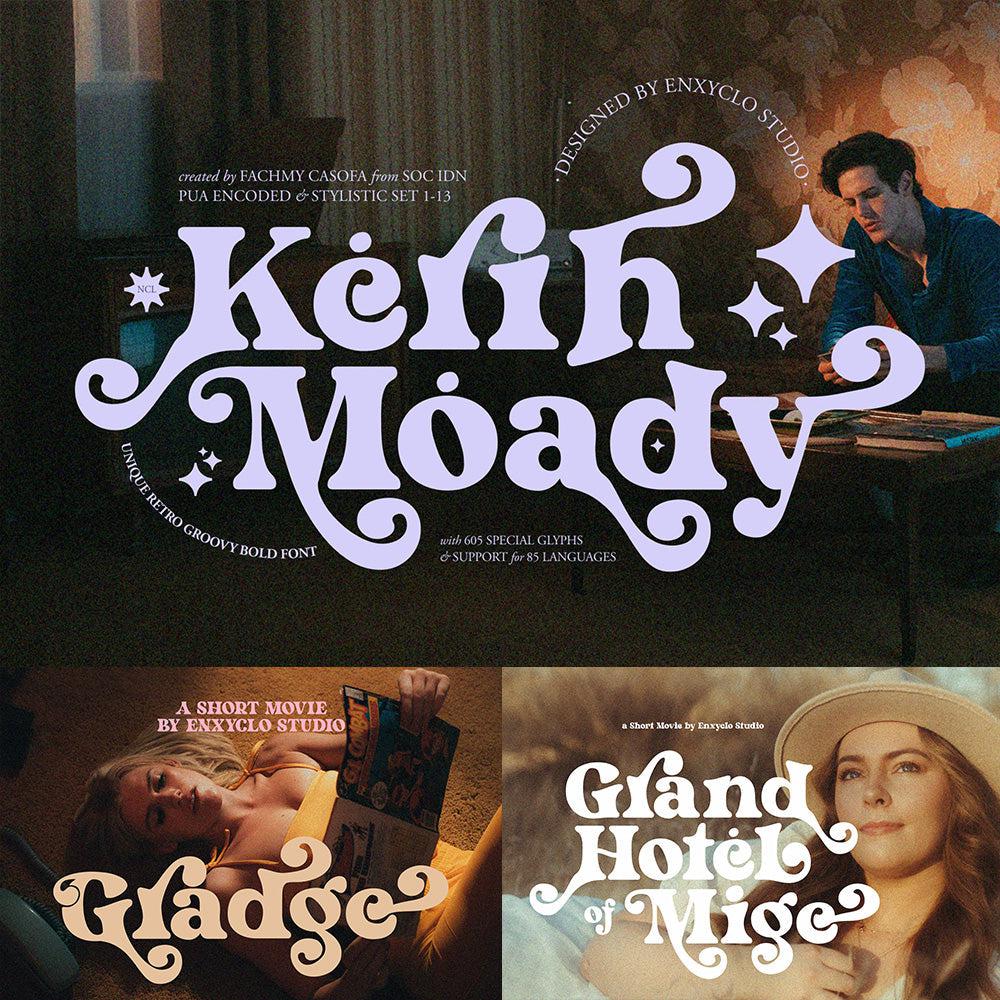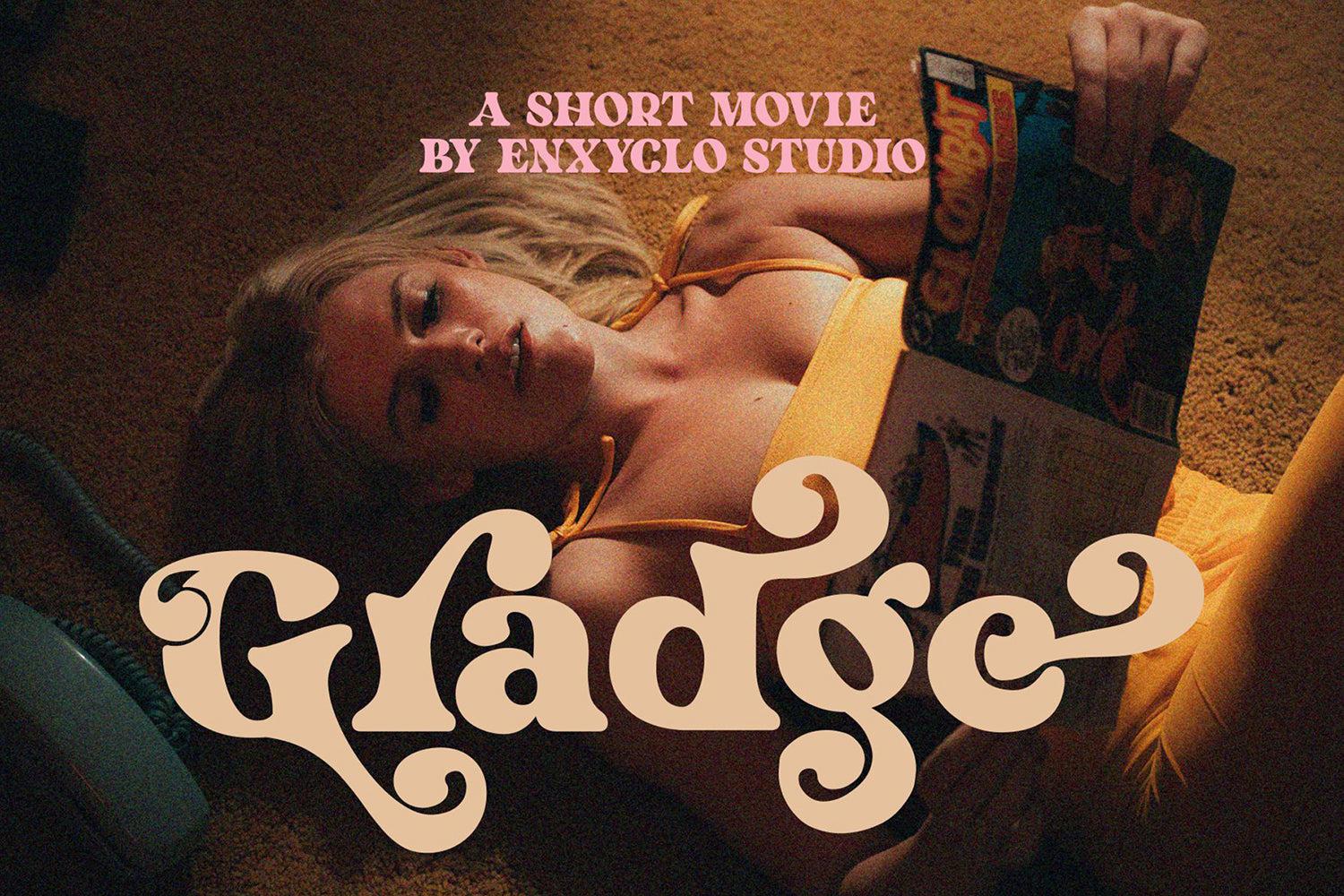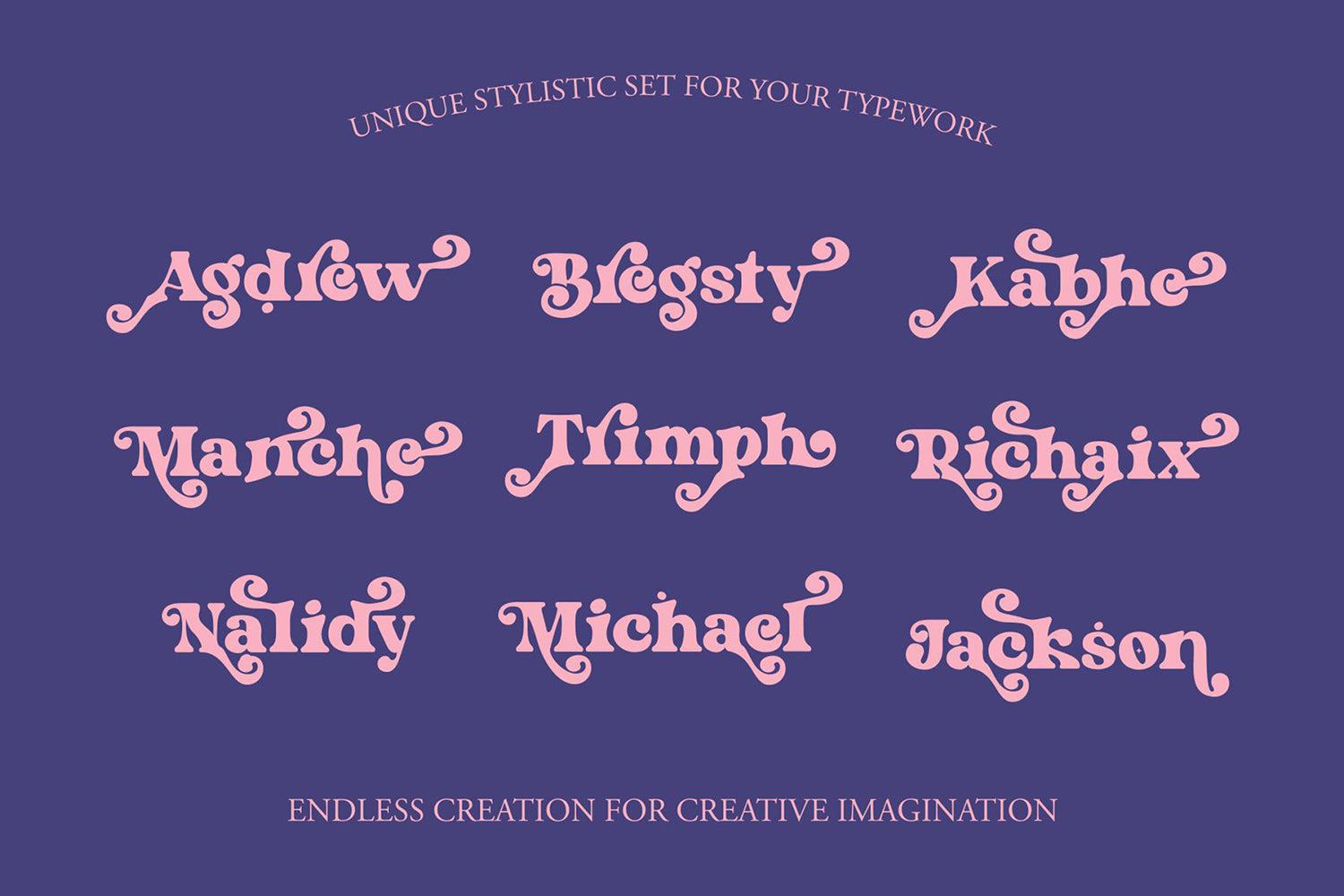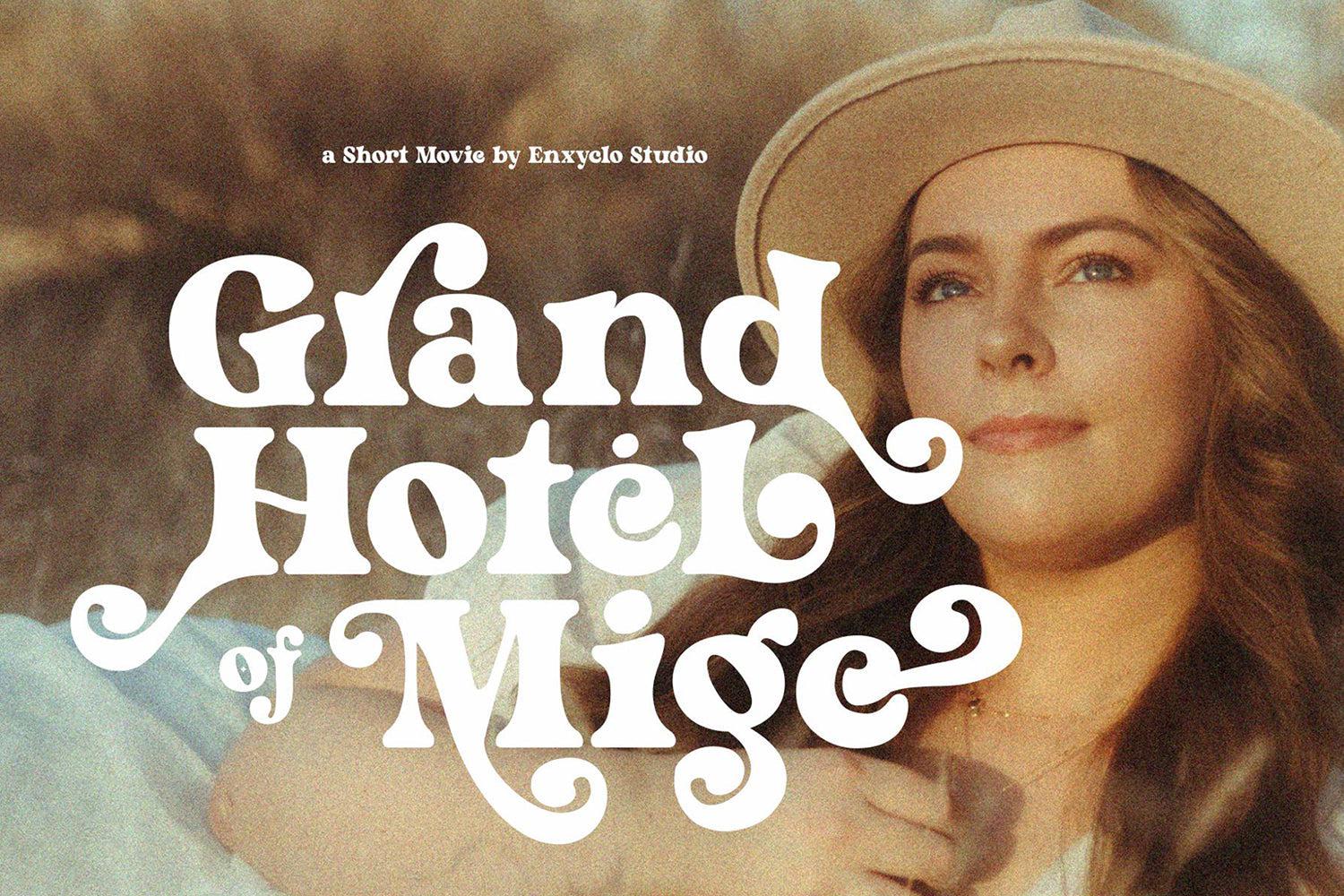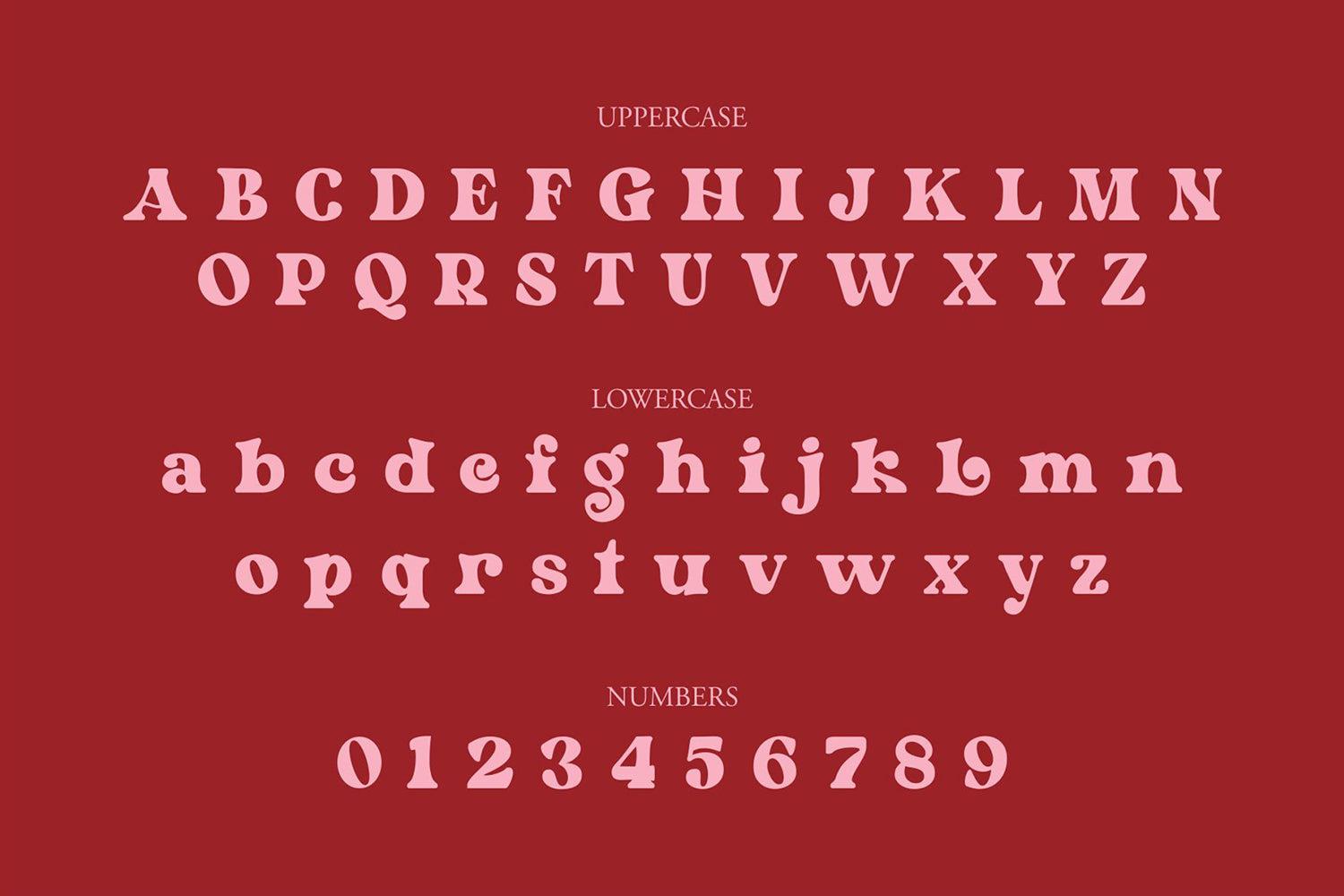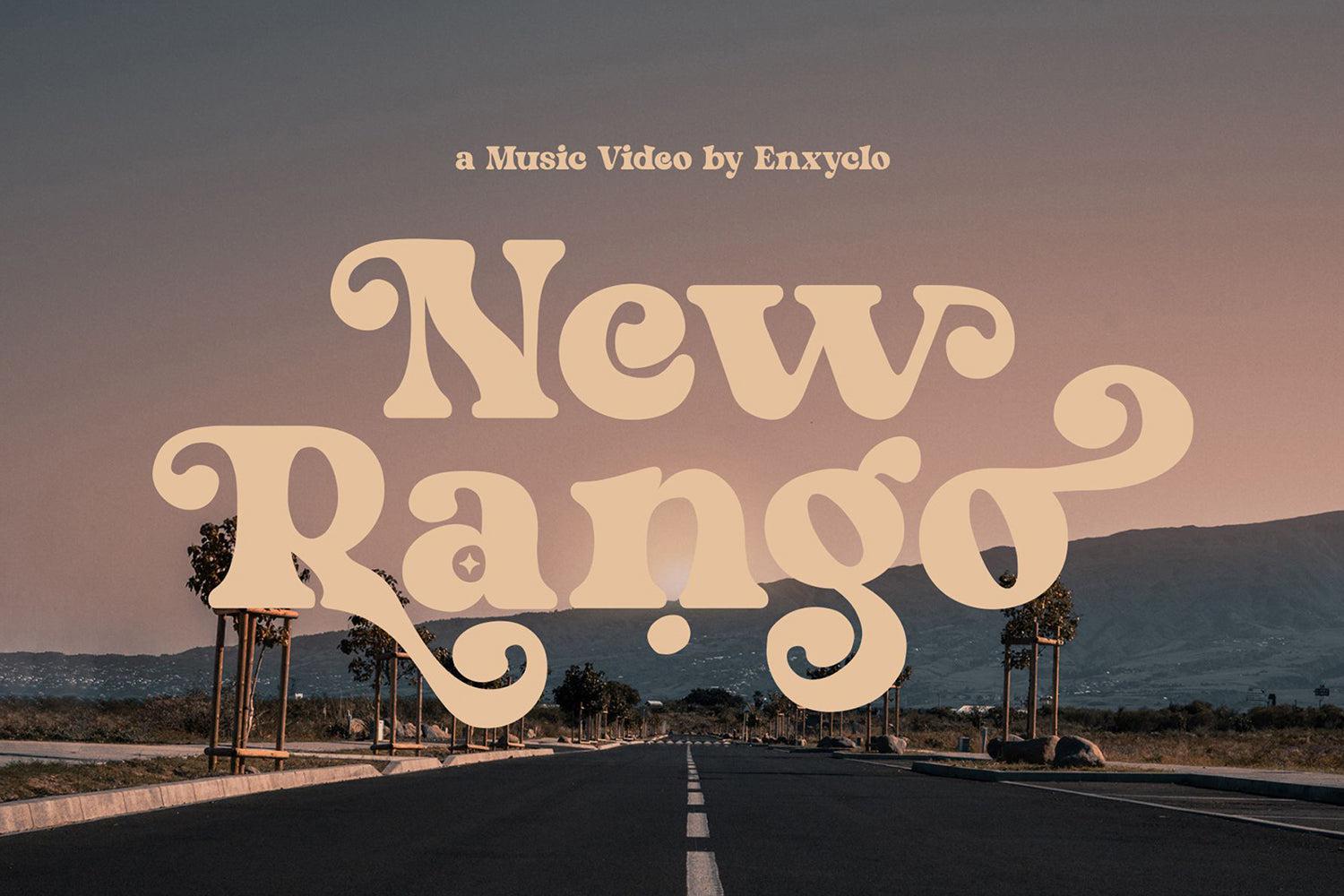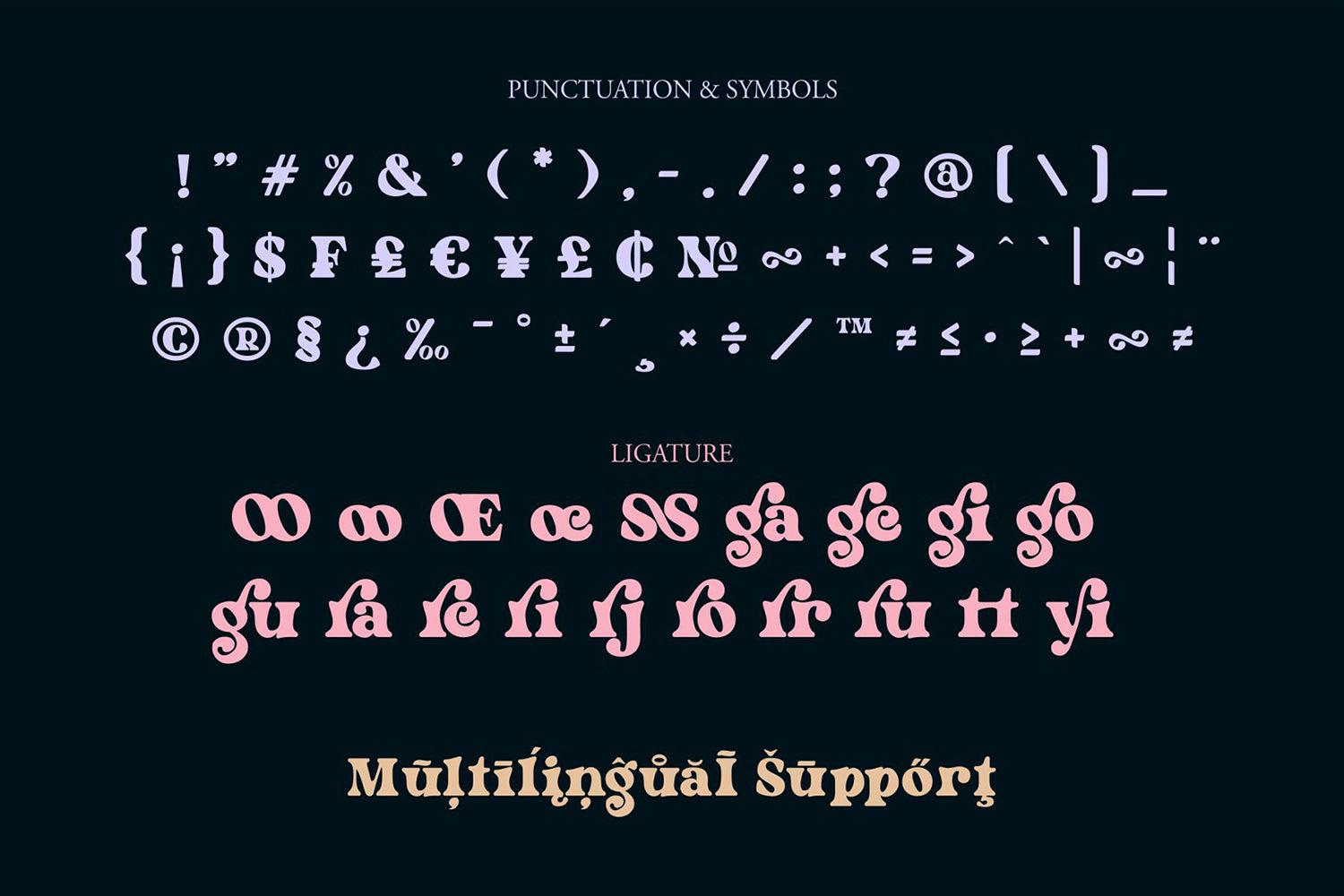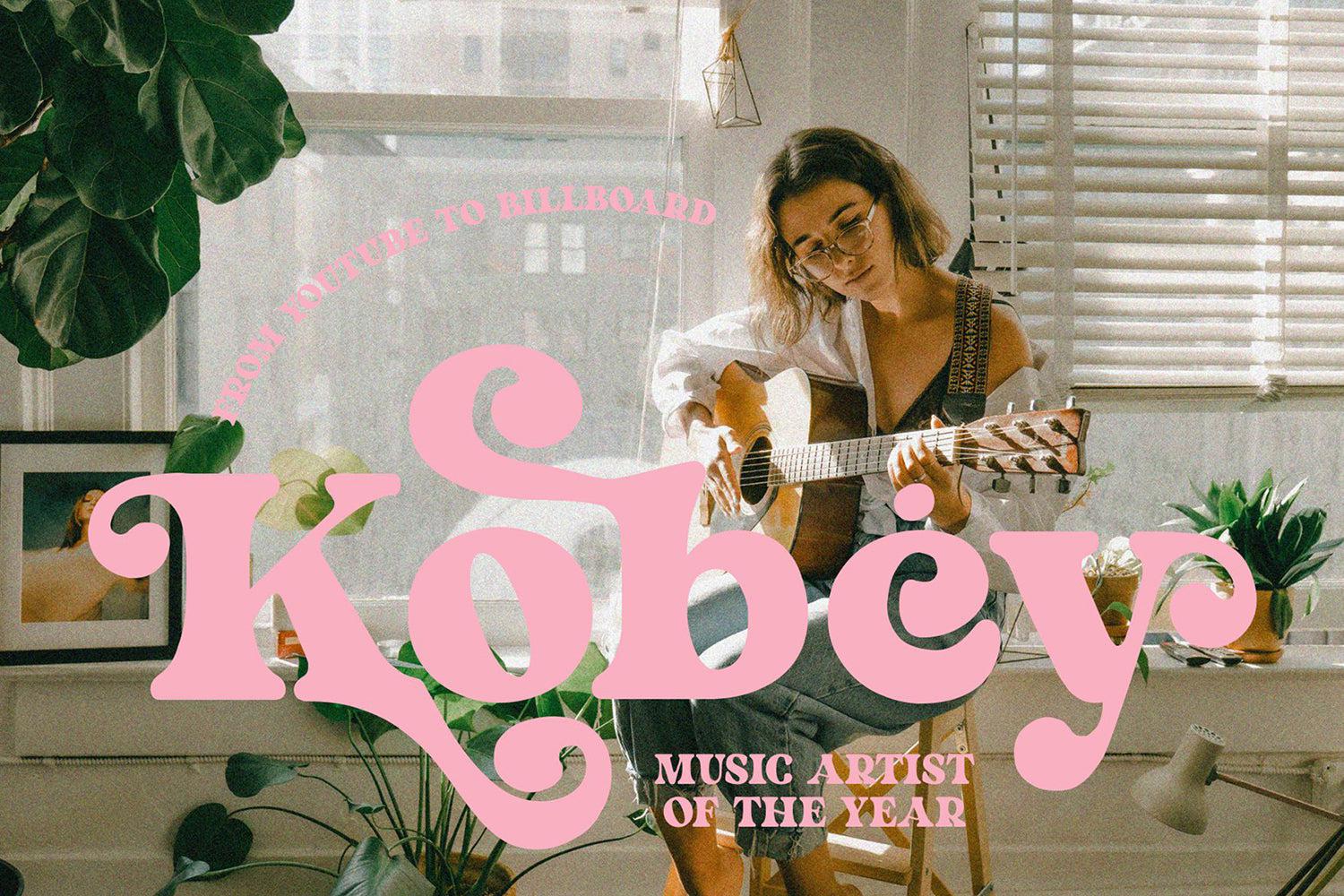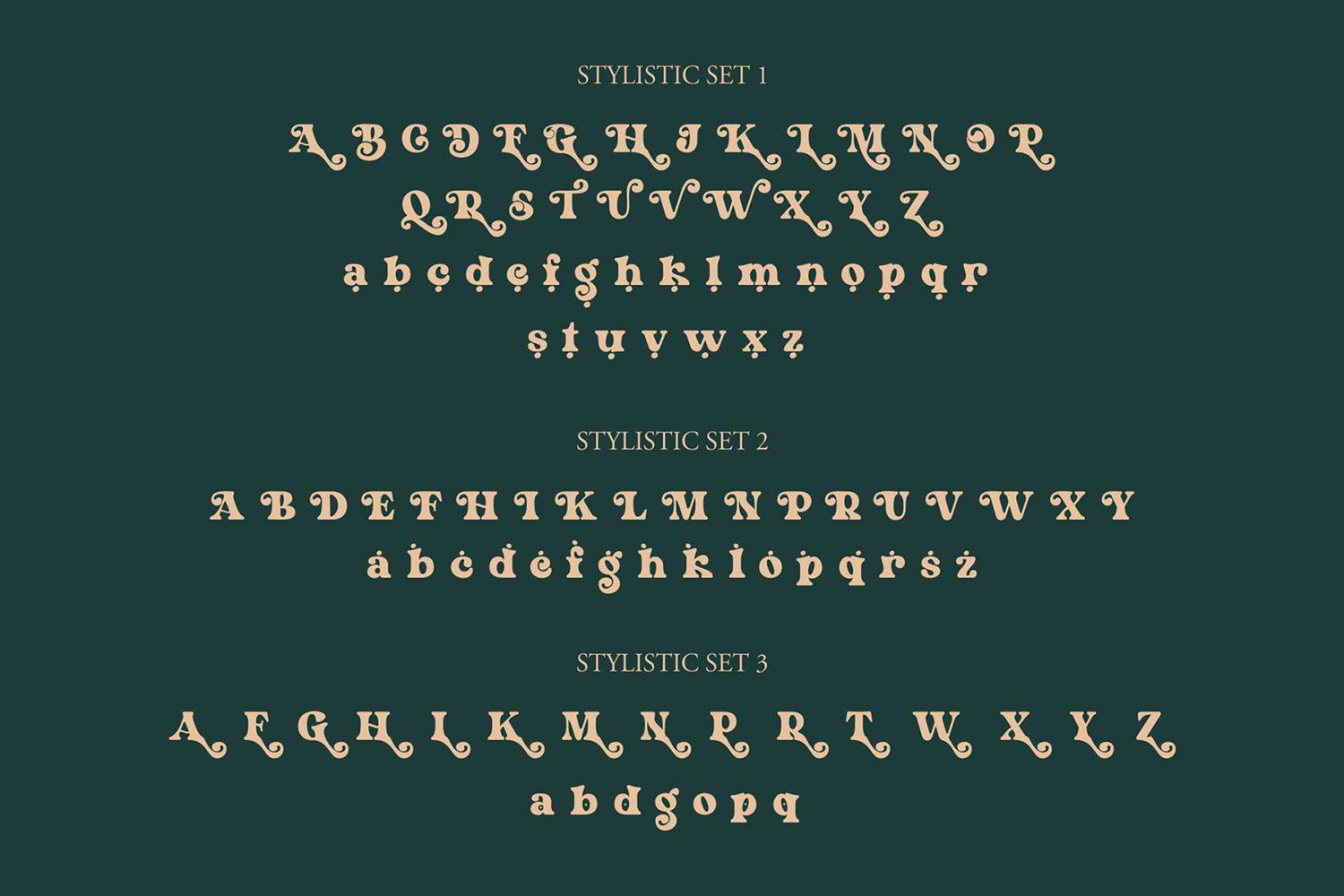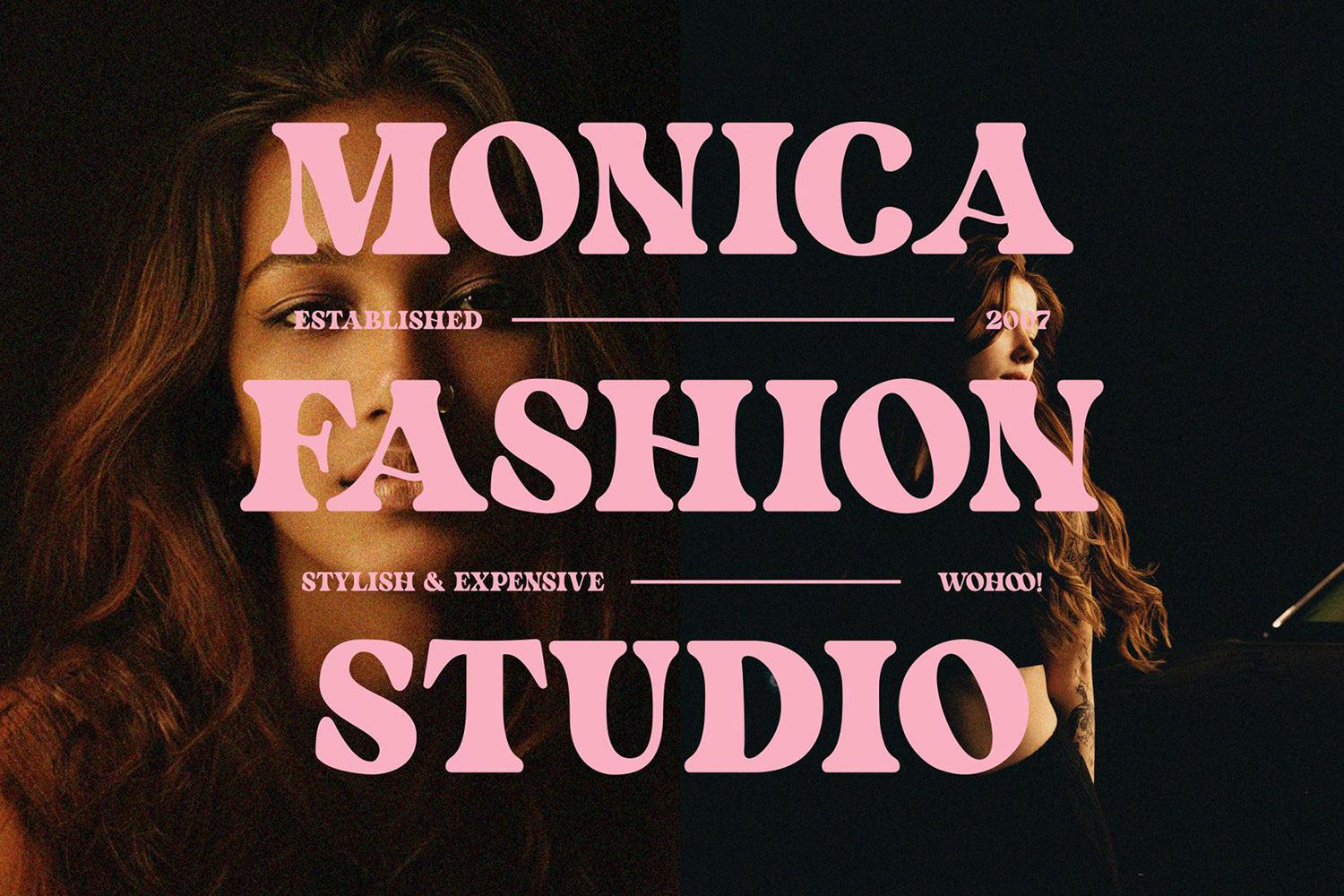
NCL Kerih Moady - Police rétro Groovy Bold
The NCL Kerih Moady is a retro groovy bold font that is designed for use in large and small point sizes. It includes True Type Font (TTF), Open Type Font (OTF), and Web Open Format (WOFF1 & WOFF2), and contains 605 glyphs, uppercase and lowercase letters, numerals, punctuation, symbols, special ligatures, and stylistic sets. This font supports 85 languages.
Ideal for retro-inspired graphic design and modern branding projects. Perfect for posters, wedding invitations, magazine covers, and billboards, ensuring a bold and eye-catching visual impact.